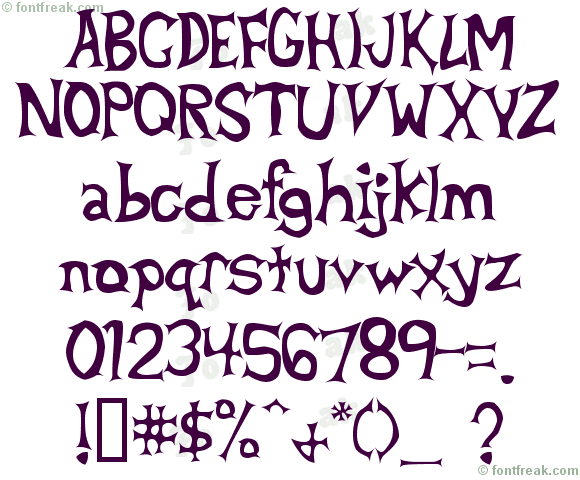
Beta Dance
Beta Dance by Unauthorized Type is a captivating decorative font that draws inspiration from playful, rhythmic movements reminiscent of dance. This freeware font features unique, stylized letterforms that are both whimsical and dynamic, making it a standout choice for various creative projects. The strokes exhibit a medium weight with interesting contrasts, enhancing its visual appeal. The letters have a slightly uneven baseline, giving them a lively, spontaneous character that evokes joy and movement. The spacing between characters is thoughtfully designed to maintain readability while ensuring a vibrant flow.
Best suited for creative endeavors, the Beta Dance font is an excellent choice for wedding invitations, where its playful nature can add a touch of charm. It also shines in movie posters, particularly for films featuring dance or music themes, helping to convey an energetic vibe. Additionally, this font is ideal for restaurant menus, especially for eateries that focus on modern or eclectic cuisine, as it brings an inviting yet artistic flair. Small business owners looking to create eye-catching promotional materials will find this font particularly useful in branding efforts. Its unique style appeals to graphic designers and content creators alike, who seek to make their work stand out.